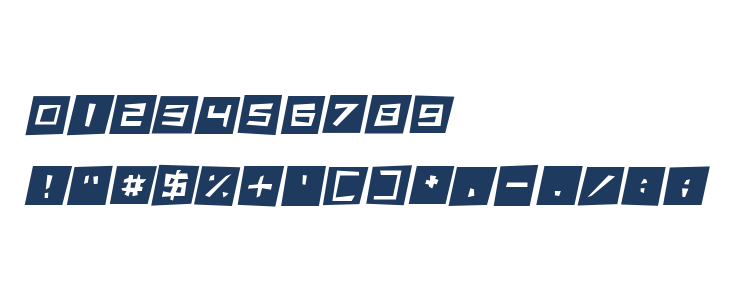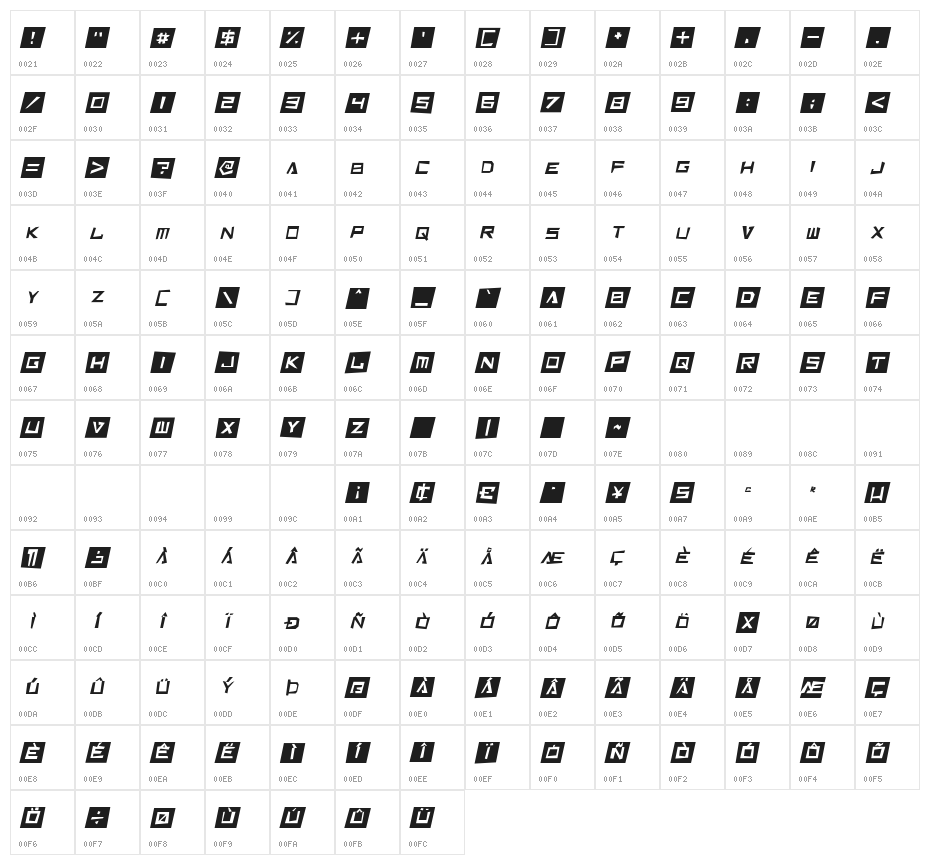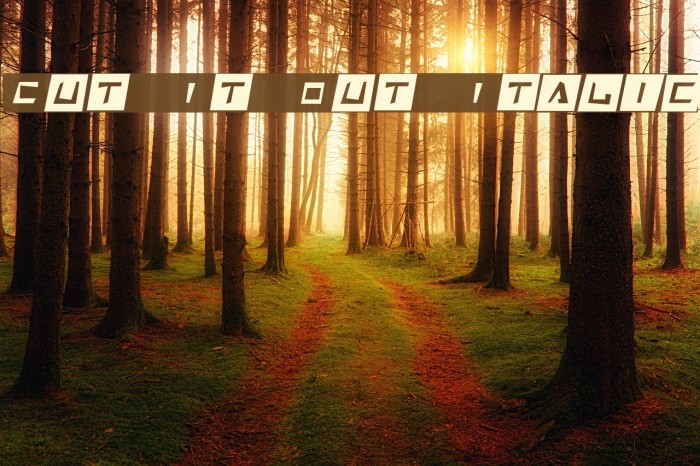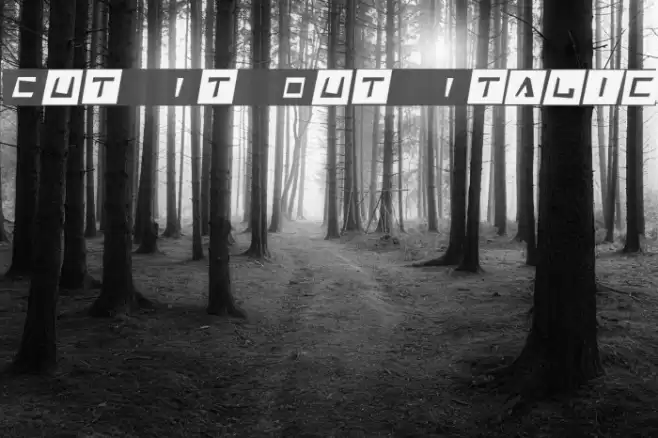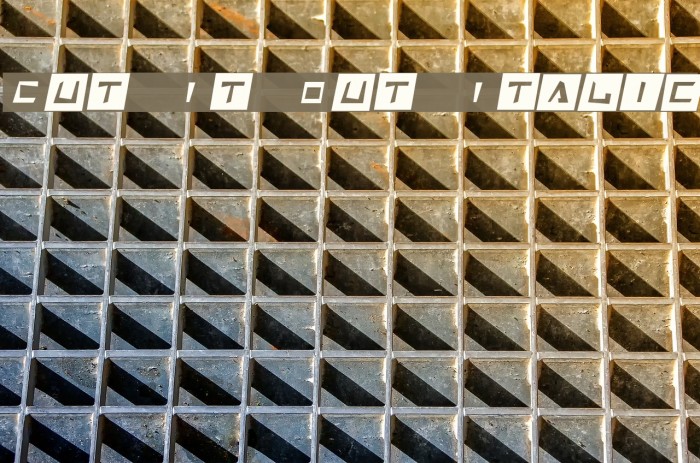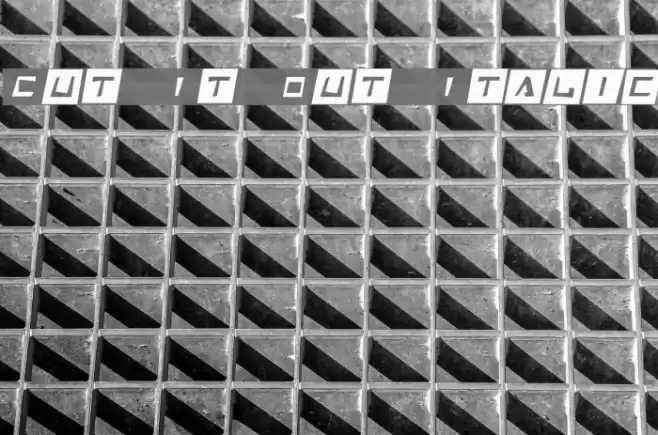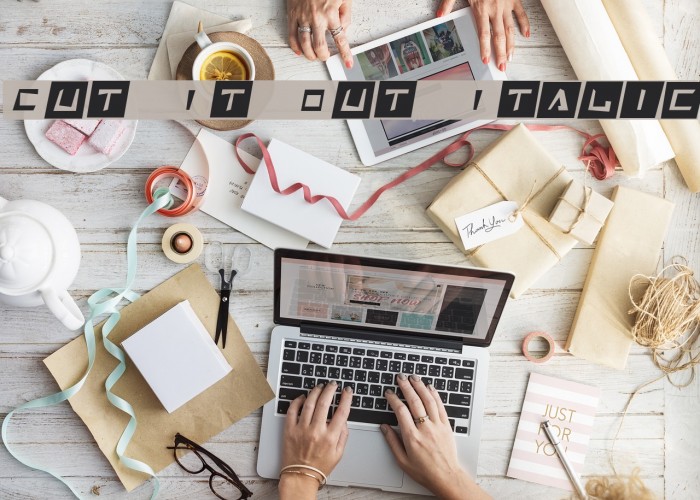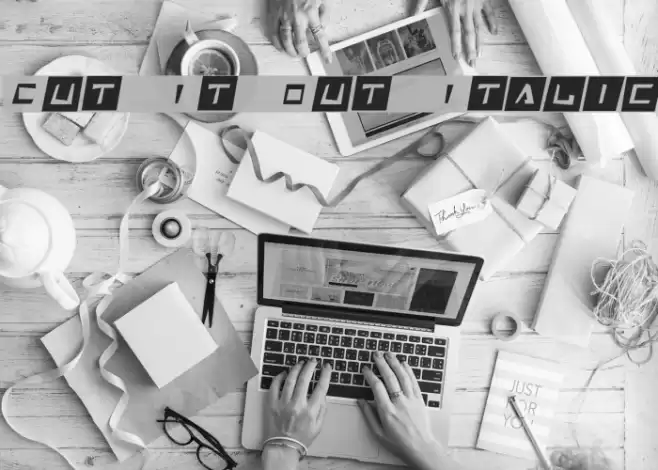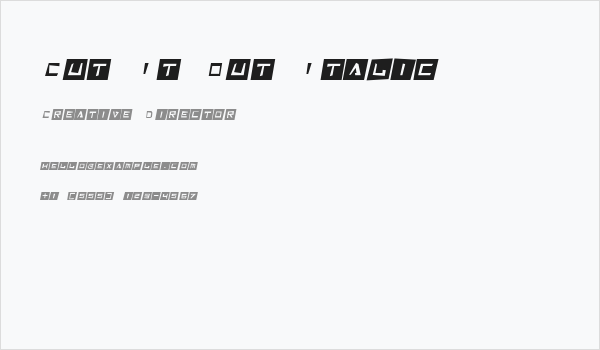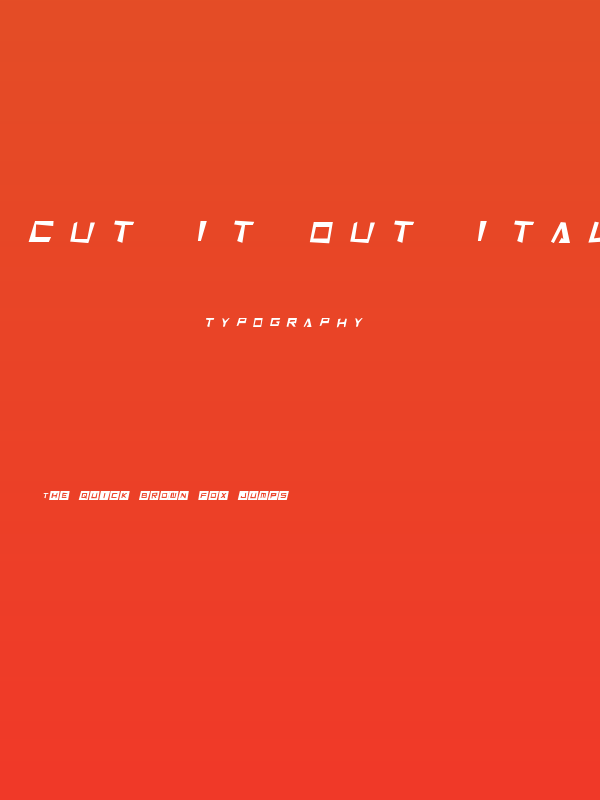
Cut It Out Italic Font
Cut It Out Italic Description
This font features a bold, angular design with a distinct italic slant, giving it a dynamic and energetic appearance. The characters are sharply cut, with a futuristic and geometric style that stands out. The uppercase letters are particularly striking, with a unique slanted form that adds to the overall modern aesthetic. The numbers and special characters maintain this bold and angular theme, ensuring consistency throughout the typeface. The font's design is reminiscent of stencil or cut-out styles, making it ideal for projects that require a strong visual impact.